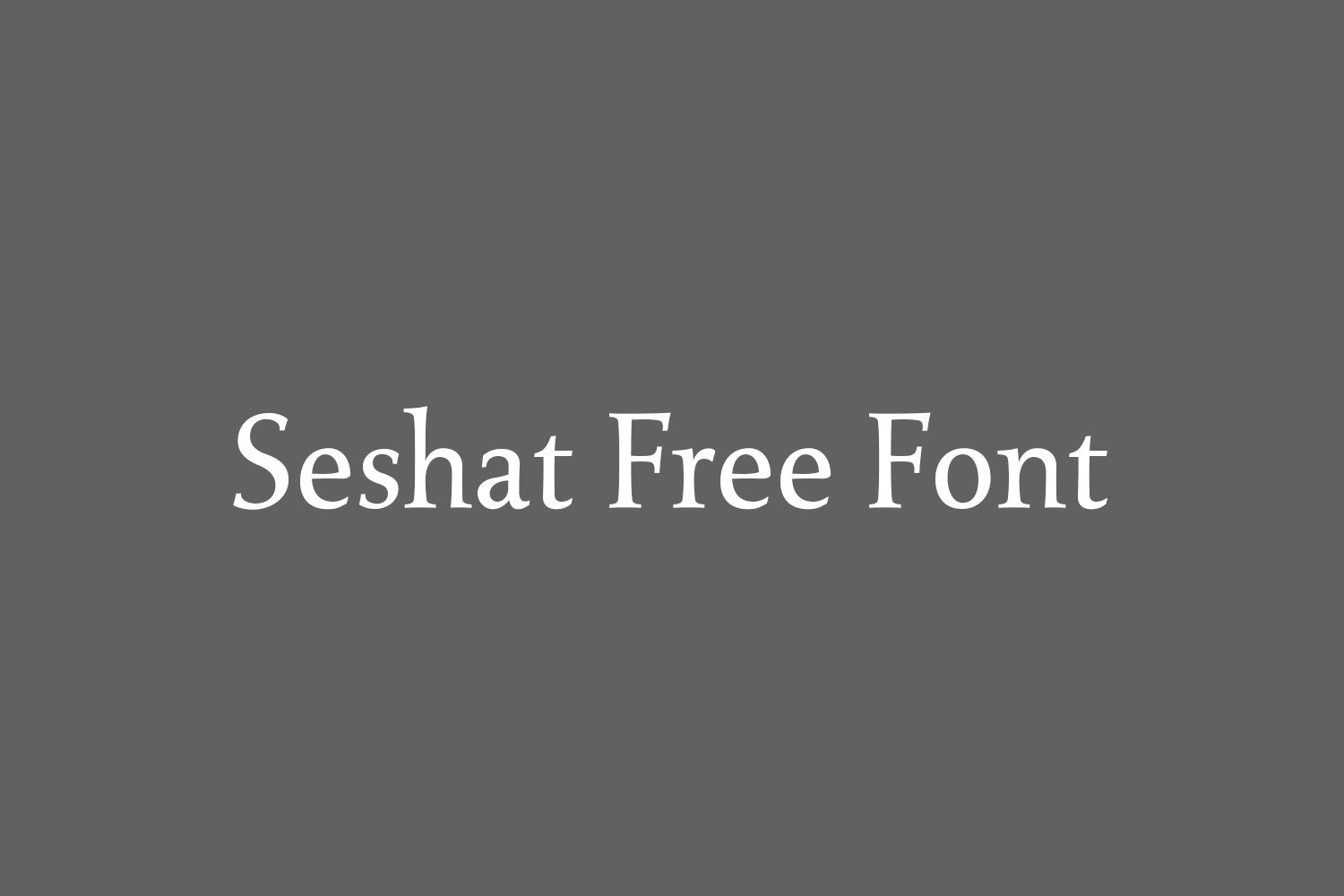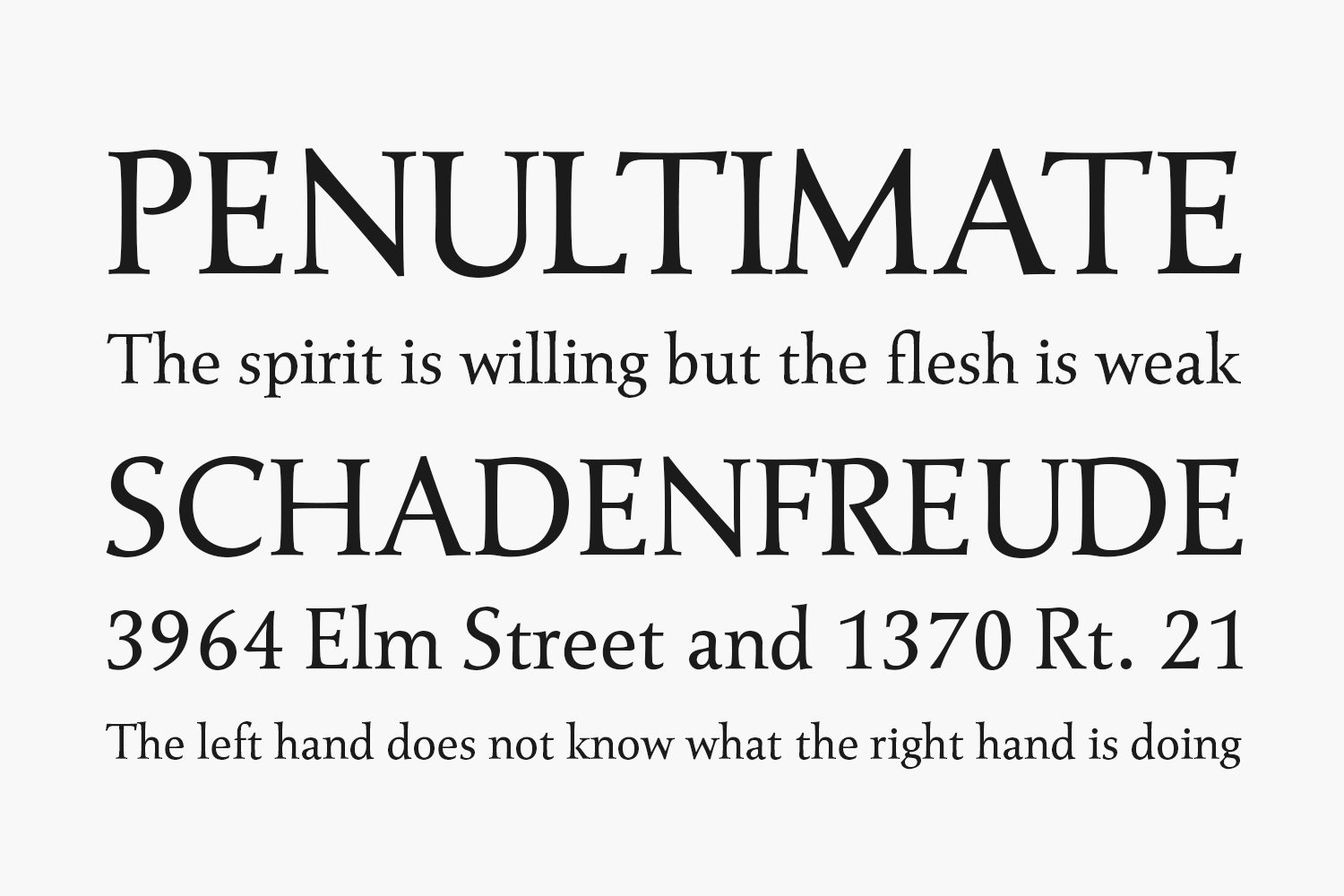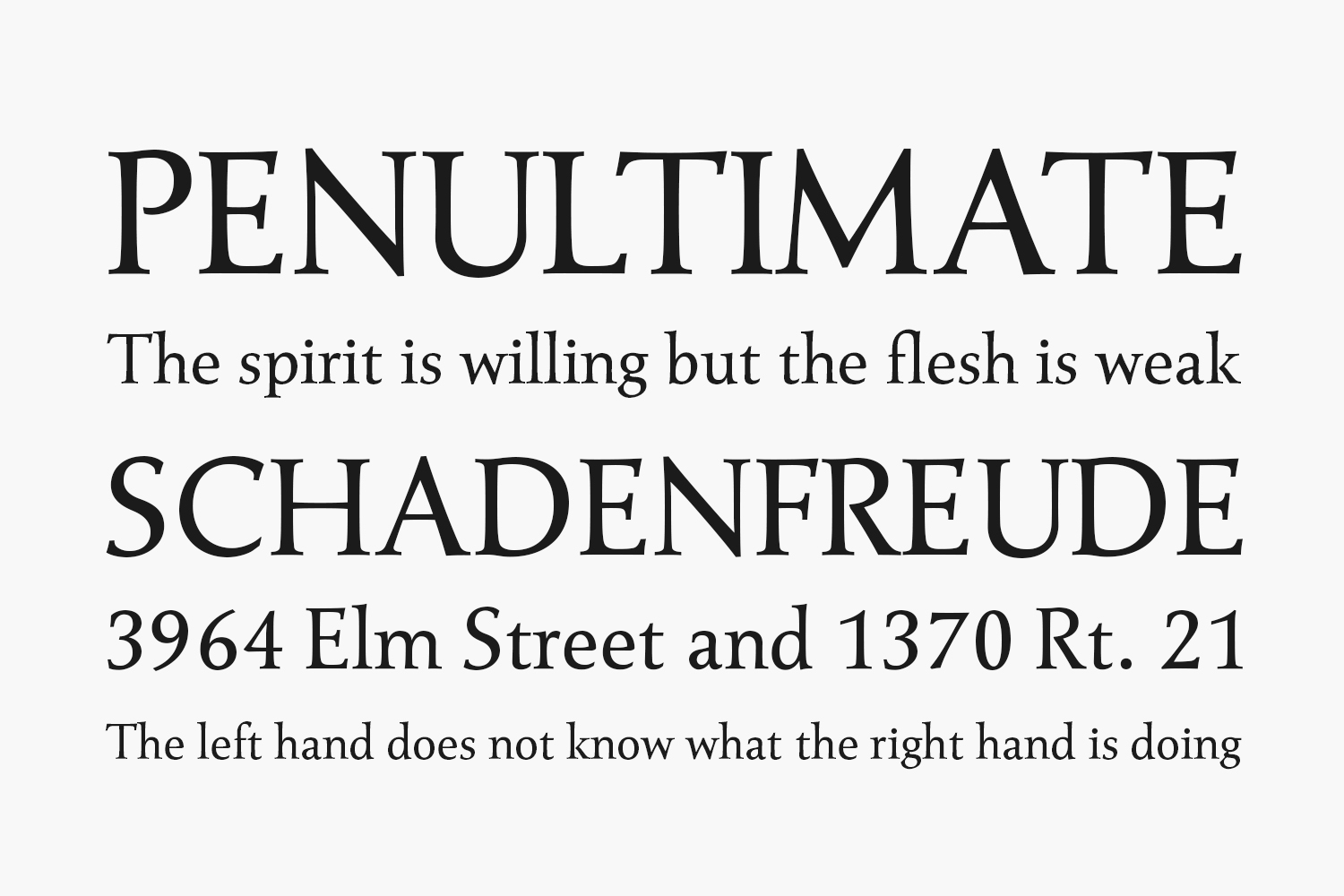
Seshat Free Font is a Roman body font designed for the main text. By referring to the classical balance, we changed some lines by omitting part of the lines such as “A” and “n”.
Also, by attaching the strength of the thickness like Optima to the main drawing, it makes it more sharp design.
Like the version upgraded Vegur, it incorporates symbols and ligatures used in the European region.